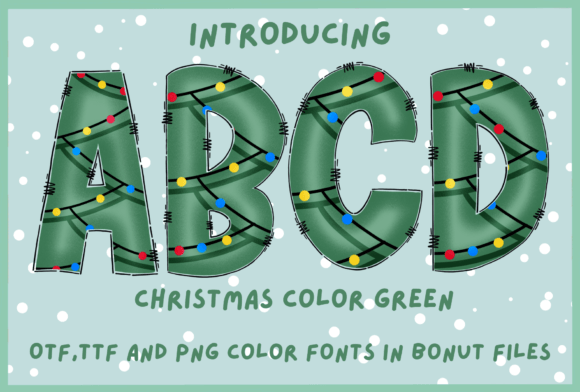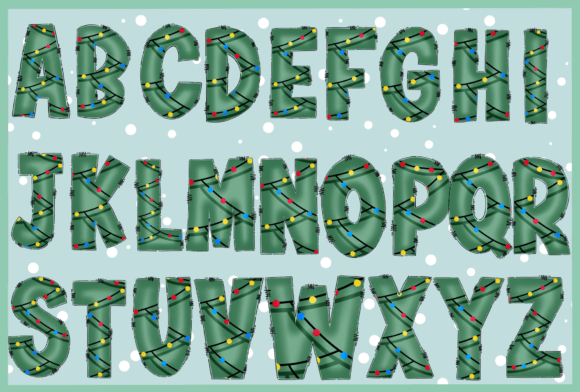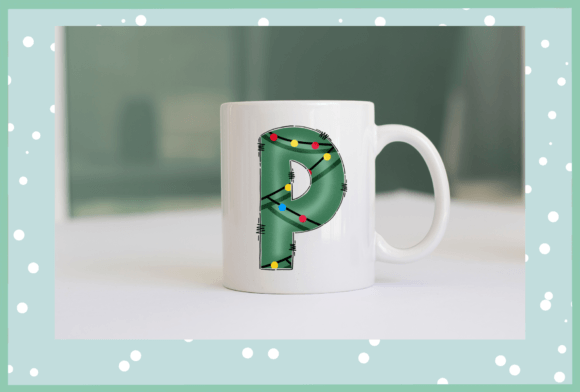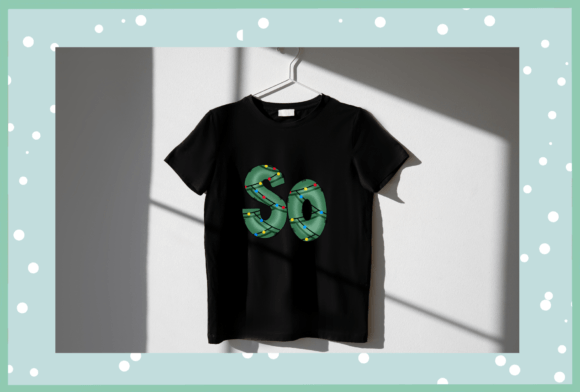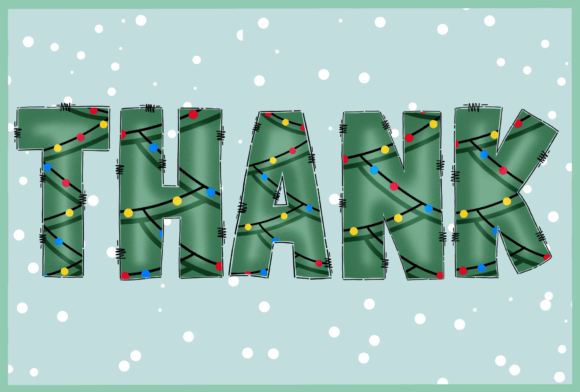
Christmas Color Green Font
Christmas green is a super cute handwriting font with a simple style, suitable for teaching, and decorating presentations. Use it for education, advertising, illustration, multi-purpose use.